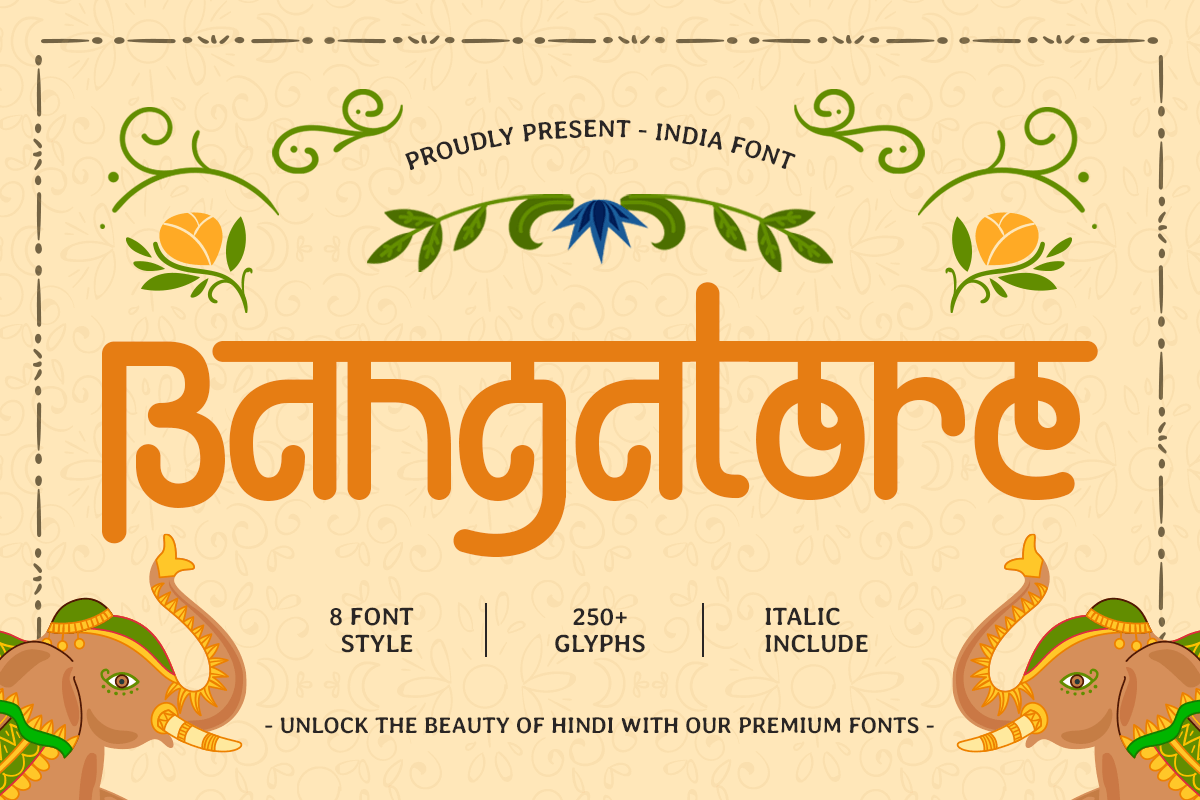
Bangalore
-India Diwali Hindi Festival Font
Bangalore - India Diwali Hindi Festival Font
Bangalore is an India Diwali Hindi festival font inspired by the richness of Indian traditions, festive celebrations, and cultural artistry. With decorative and ethnic letterforms, Bangalore captures the vibrancy of Diwali and the elegance of Hindi-style typography.
Perfect for festival posters, cultural branding, invitations, packaging, or traditional design projects, this typeface brings warmth, celebration, and authenticity into every design. Whether for print or digital, Bangalore ensures your creative work radiates cultural heritage and festive charm.
Bangalore – India Diwali Hindi Festival Font Features
• Ethnic decorative letterforms inspired by Indian festivals
• Ready with 8 Styles (Include Regular and Rounded Style of Each Weight)
• Perfect for Diwali, cultural branding, and heritage projects
• Unique aesthetic rooted in Indian cultural tradition
• OpenType features for versatile typographic styling
Bring the festive spirit alive with Bangalore – the ultimate font for Diwali, Hindi, and Indian cultural design. 🪔🌸